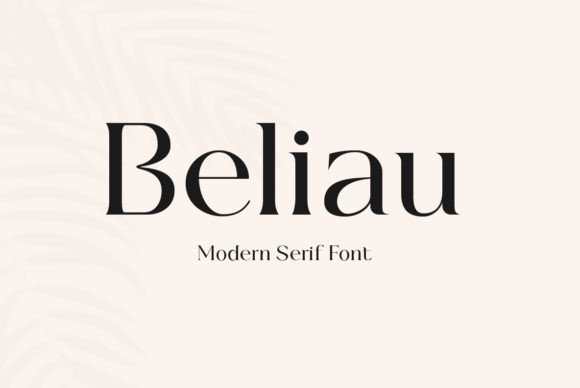
**Beliau: The Serif Font for a Refined and Sophisticated Design**
Indulge in the allure of Beliau, a meticulously crafted serif typeface that exudes elegance and sophistication. Designed with the utmost precision for high-resolution displays and print media, Beliau's finely balanced proportions and graceful curves lend an air of distinction to any design.
Beliau is the perfect choice for headline text, where it commands attention with its commanding presence. Its refined character adds a touch of gravitas to corporate branding, making it an ideal choice for businesses seeking to project an image of professionalism and trustworthiness.
**Why Beliau is the Perfect Font for Your Design Projects:**
1. **Unrivaled Legibility:** Beliau's carefully crafted letterforms ensure exceptional readability, making it easy for your audience to absorb your message with clarity and ease.
2. **Memorable Impact:** The distinctive design of Beliau creates a lasting impression, ensuring that your headlines and branding materials stand out from the crowd.
3. **Versatile Applications:** Beliau's timeless appeal makes it suitable for a wide range of design projects, from elegant invitations and brochures to eye-catching social media graphics.
4. **Emotional Resonance:** Beliau's refined character evokes a sense of trust and sophistication, making it an ideal choice for designs that aim to inspire confidence and admiration.
5. **Modern Precision:** Designed specifically for high-resolution displays, Beliau renders with exceptional clarity and sharpness, ensuring a polished and professional appearance across all your digital platforms.